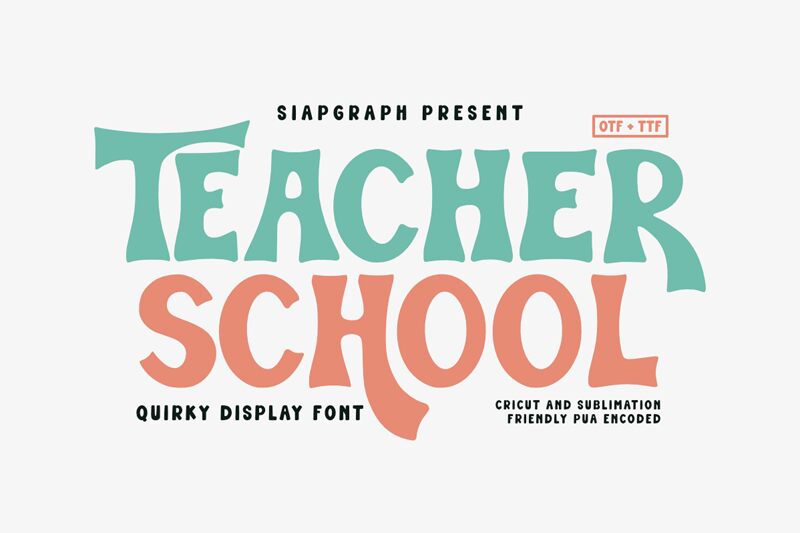
Teacher School Regular
Teacher School by SiapGraph is a free groovy display font shaped by soft, swelling silhouettes and slightly uneven serif forms that give the lettering a handmade classroom-poster feel. The broad curves and flared tops keep the design friendly and expressive, with enough quirk to feel more personal than a standard retro display cut.
That character makes sense on bulletin board headers, classroom signs, worksheet covers, kids' event invitations, and learning app graphics. Because the forms feel rounded and informal rather than slick or geometric, Teacher School can anchor short titles and themed branding where a warm, teacher-made tone is part of the message.